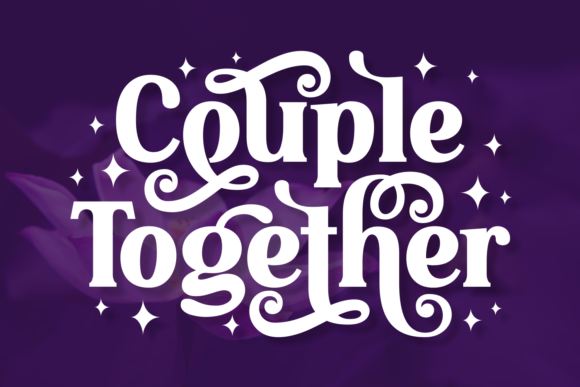
Looking for the best font to elevate your family name sign? Look no further than Couple Together Font, created by Jasm at 7NTypes. This trendy, bold and stylish serif font is the perfect choice to make your sign stand out.
Not only is Couple Together Font visually stunning, it is also incredibly versatile. With PUA encoding, you can access all glyphs and swashes with ease, allowing you to create a truly unique and personalized sign.
But the benefits of Couple Together Font don't stop there. This font will evoke emotions of warmth and love, creating a beautiful and meaningful addition to your home decor. Whether you're using it for a family name sign or other creative projects, Couple Together Font will impress and delight.